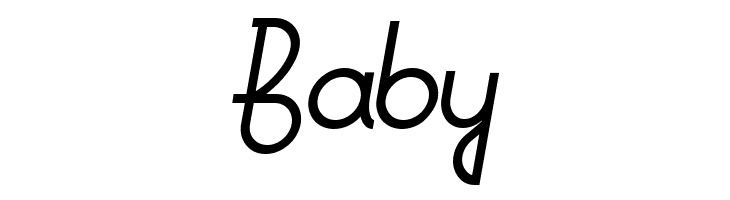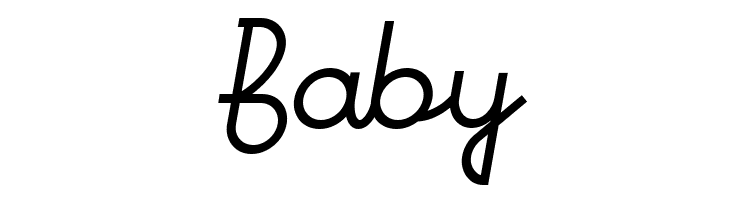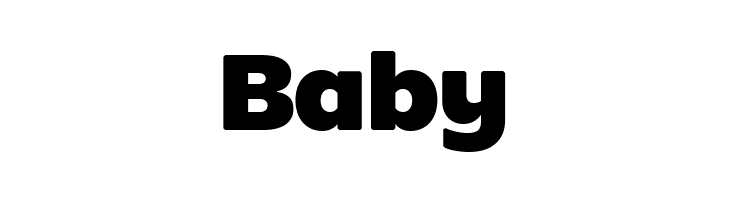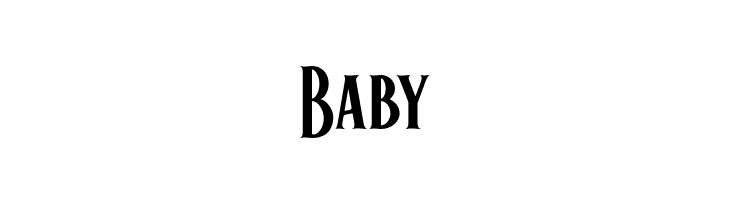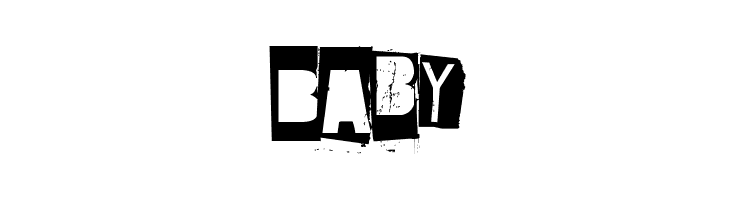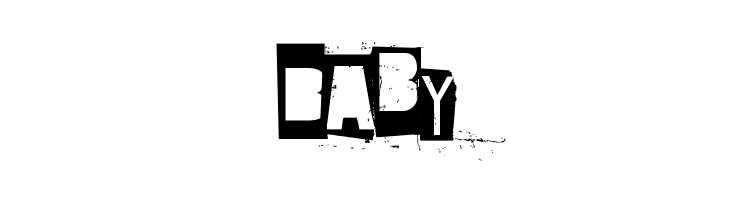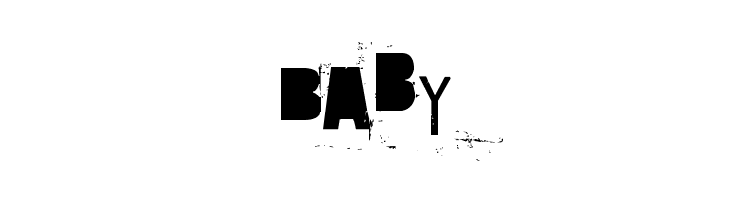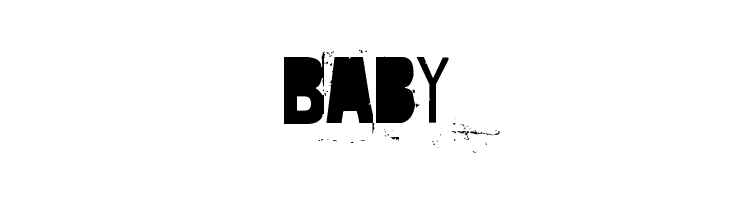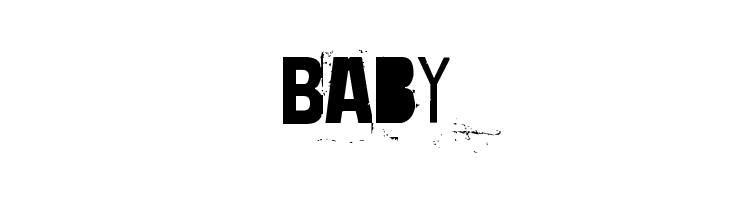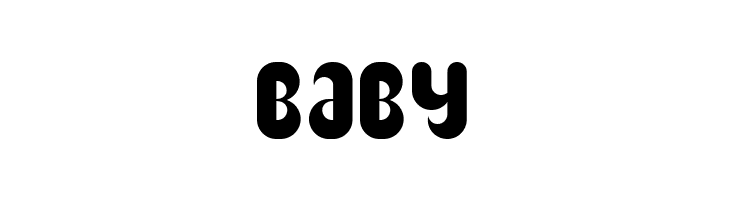
A bold, distressed font with a gritty, urban aesthetic.
A bold, distressed font with a grunge and punk aesthetic.
A bold, distressed font with a punk rock, grunge aesthetic.
A bold, distressed font with a grunge aesthetic and uneven edges.
A bold, distressed font with a gritty, urban aesthetic.
A bold, distressed font with a grunge and punk rock aesthetic.
A bold, distressed font with a gritty, punk rock aesthetic.
A bold, distressed font with a punk rock, collage-like aesthetic.
A bold, grungy font with a distressed, cut-out style perfect for punk and DIY themes.
An elegant script font with high contrast and flowing, cursive style.
A bold, elegant script font with flowing curves and dynamic strokes.
A bold, decorative font with intertwined uppercase letters and elegant curves.
A bold, dynamic script font with a handwritten, energetic style.
A bold, hand-drawn ink style font with dynamic and expressive characters.
A bold, rounded font with a playful and approachable style.
A lively, handwritten-style font with dynamic strokes and a casual feel.
A playful and modern script font with elegant, flowing lines.
A modern-retro font with playful uppercase and bold, rounded lowercase letters.
A bold, high-contrast serif font with a vintage flair.
A bold, rounded font perfect for impactful headlines and modern designs.
A bold, modern sans-serif font with clean, uniform strokes.
A modern, light sans-serif font with a clean and minimalist design.
A modern sans-serif font with smooth curves and uniform strokes.
A bold, modern font with elegant curvature and strong character definition.
A bold, hand-drawn font with a playful and dynamic style.
A bold, expressive handwritten font with fluid strokes and dynamic movement.
A lively, handwritten script font with a dynamic and flowing style.
An elegant, flowing script font with smooth, cursive strokes.
A bold, angular font with a modern and edgy style.
A playful, rounded font with smooth curves and a friendly appearance.
A playful and whimsical font with curly, flowing letterforms and elegant loops.
A modern, geometric sans-serif font with uniform stroke widths.
A bold, geometric font with uniform stroke width and strong presence.
A bold, geometric sans-serif font with clean lines and modern appeal.